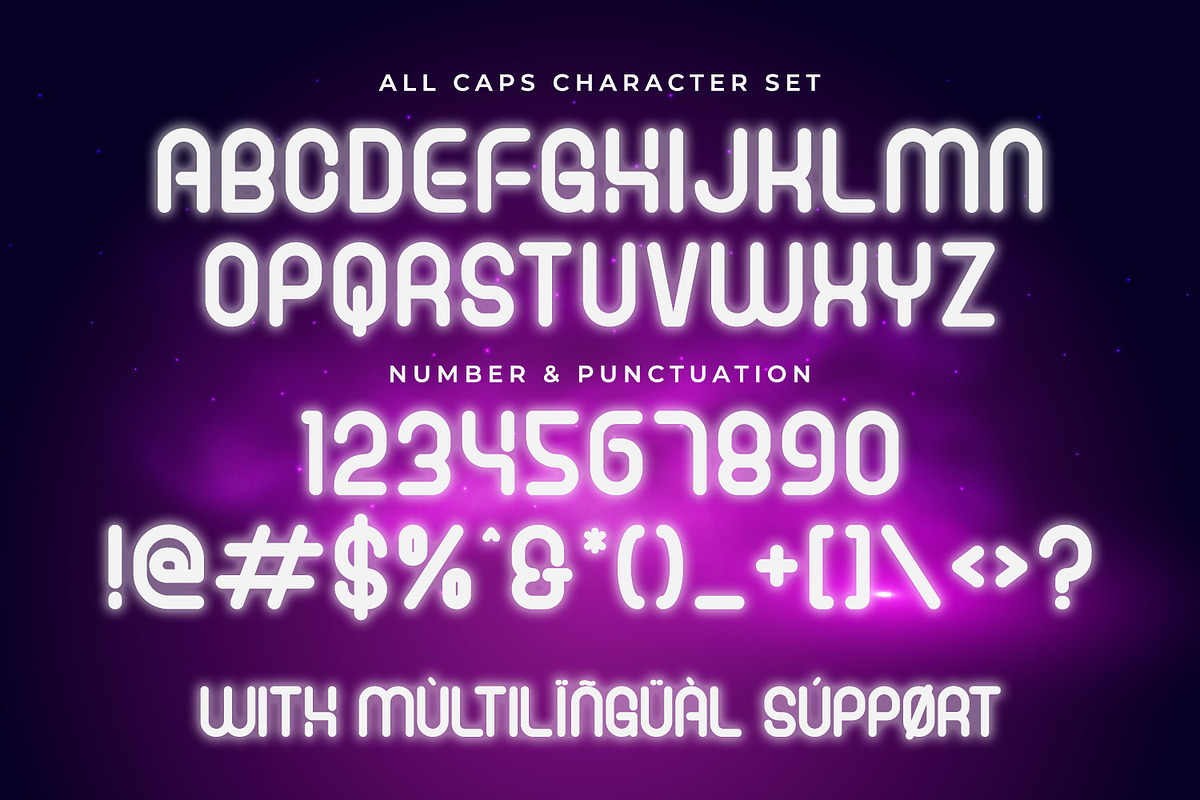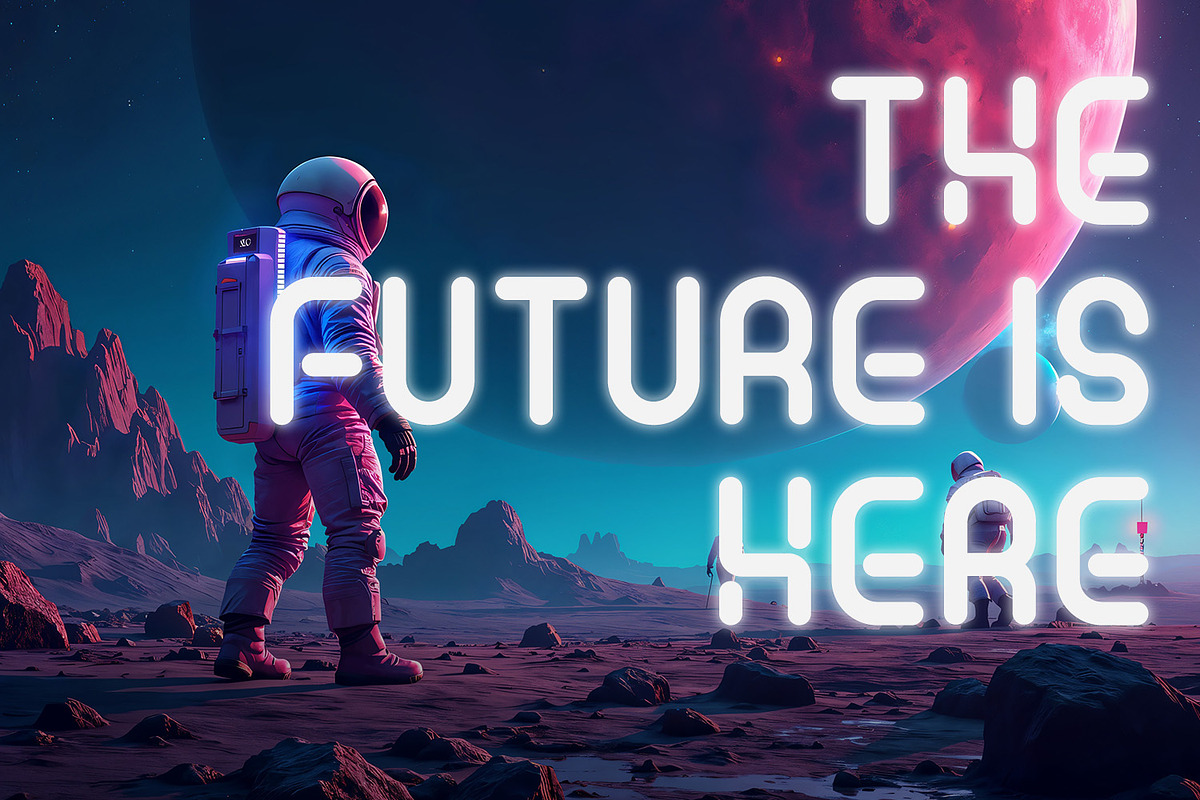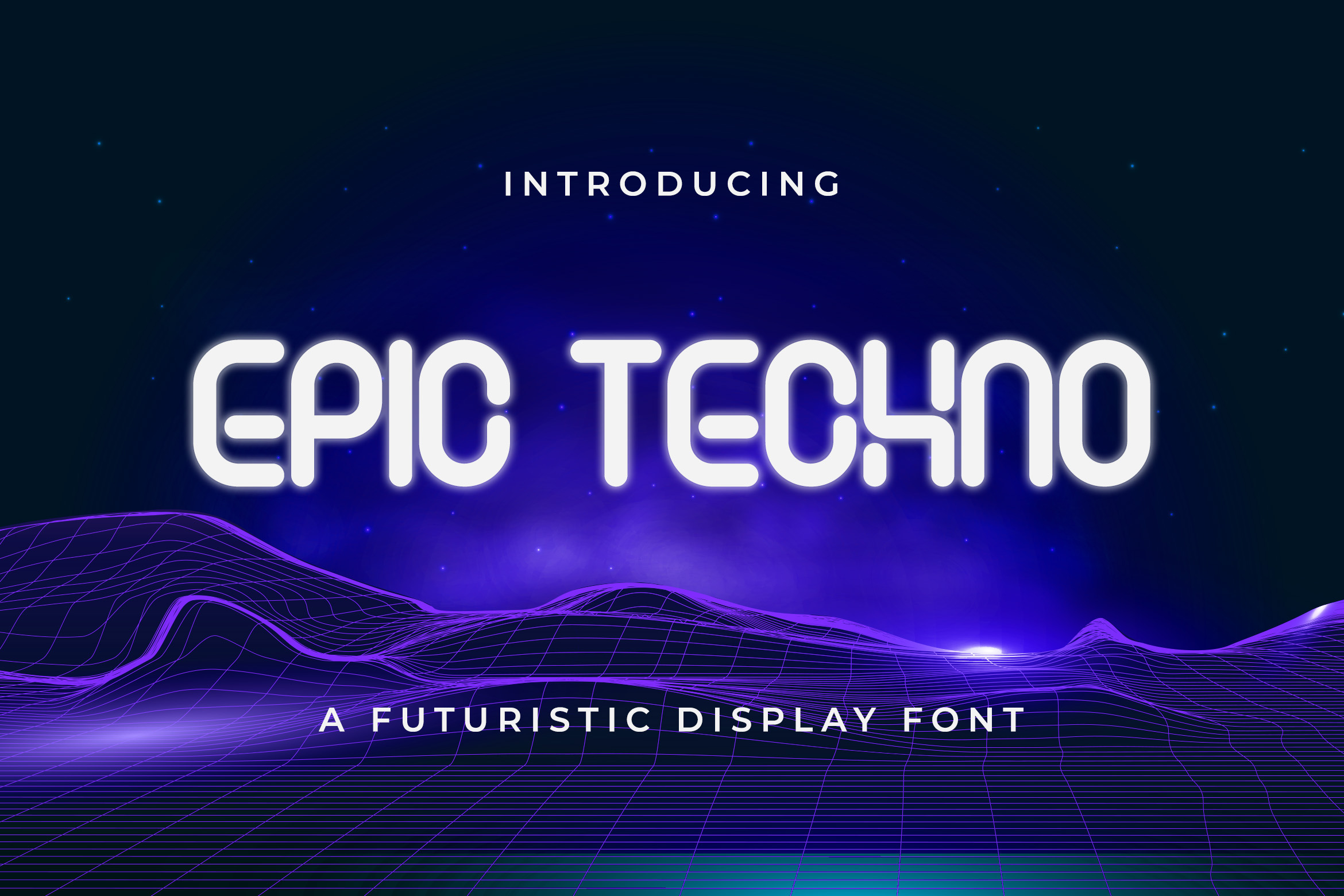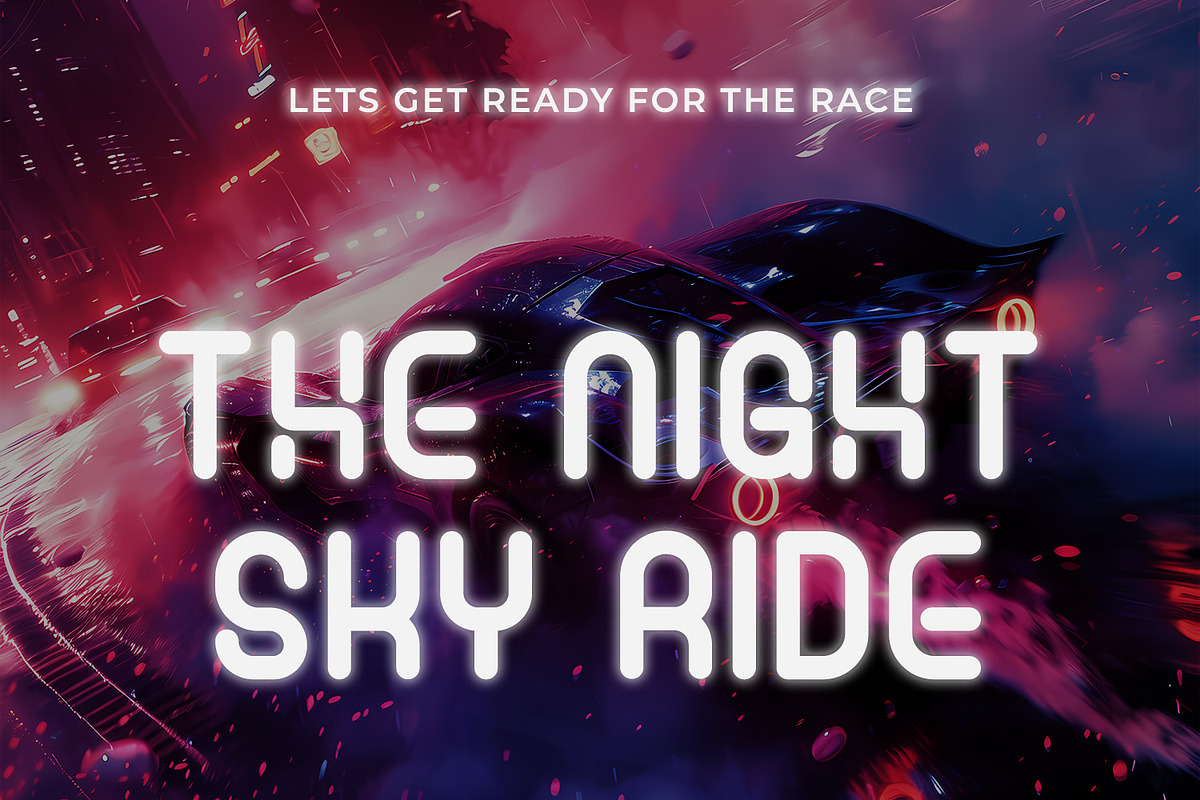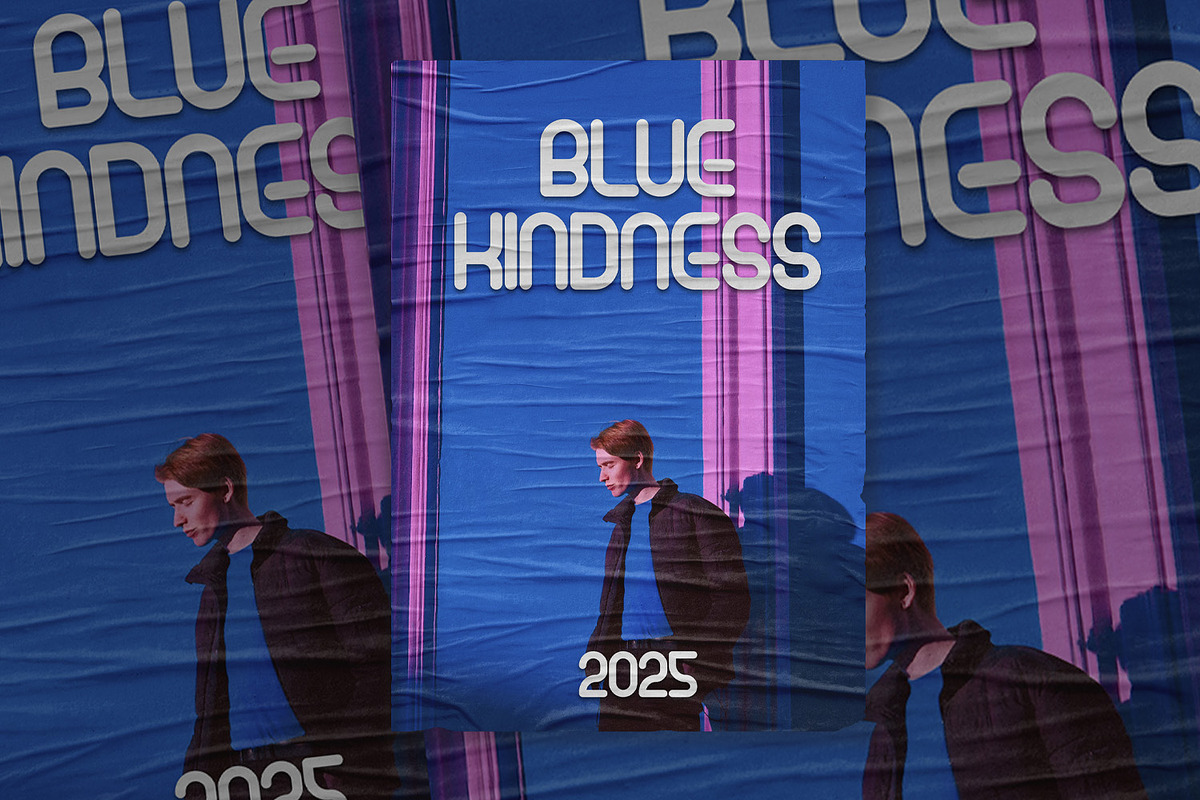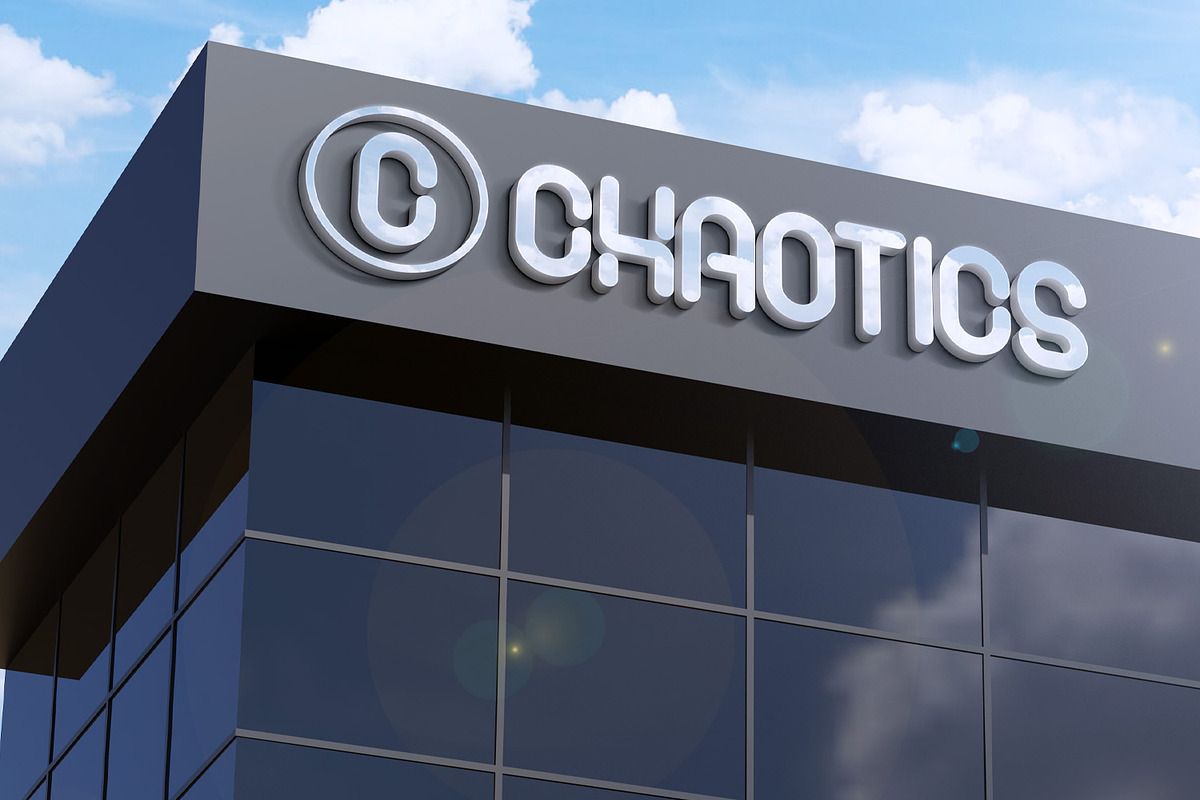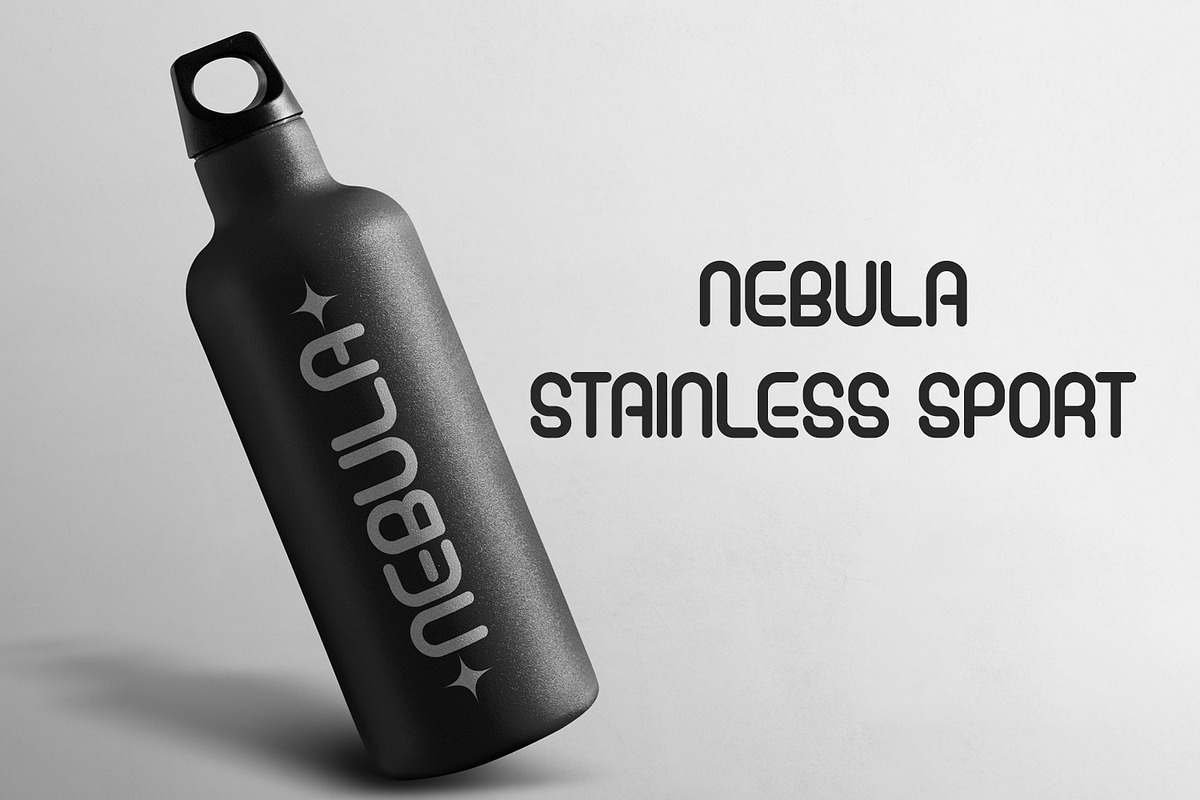
Epic Techno - Futuristic Font
Epic Techno is A Futuristic Display Font
Epic Techno is a modern, minimal, and clean Typeface with uppercase multilingual letters, numbers, punctuation, and alternate letters.
This typeface embodies a futuristic aesthetic, perfect for branding, technology, UI/UX design, posters, and any creative endeavor requiring a sleek and professional touch. Its refined curves and balanced structure create a harmonious visual flow, making it both elegant and highly legible.